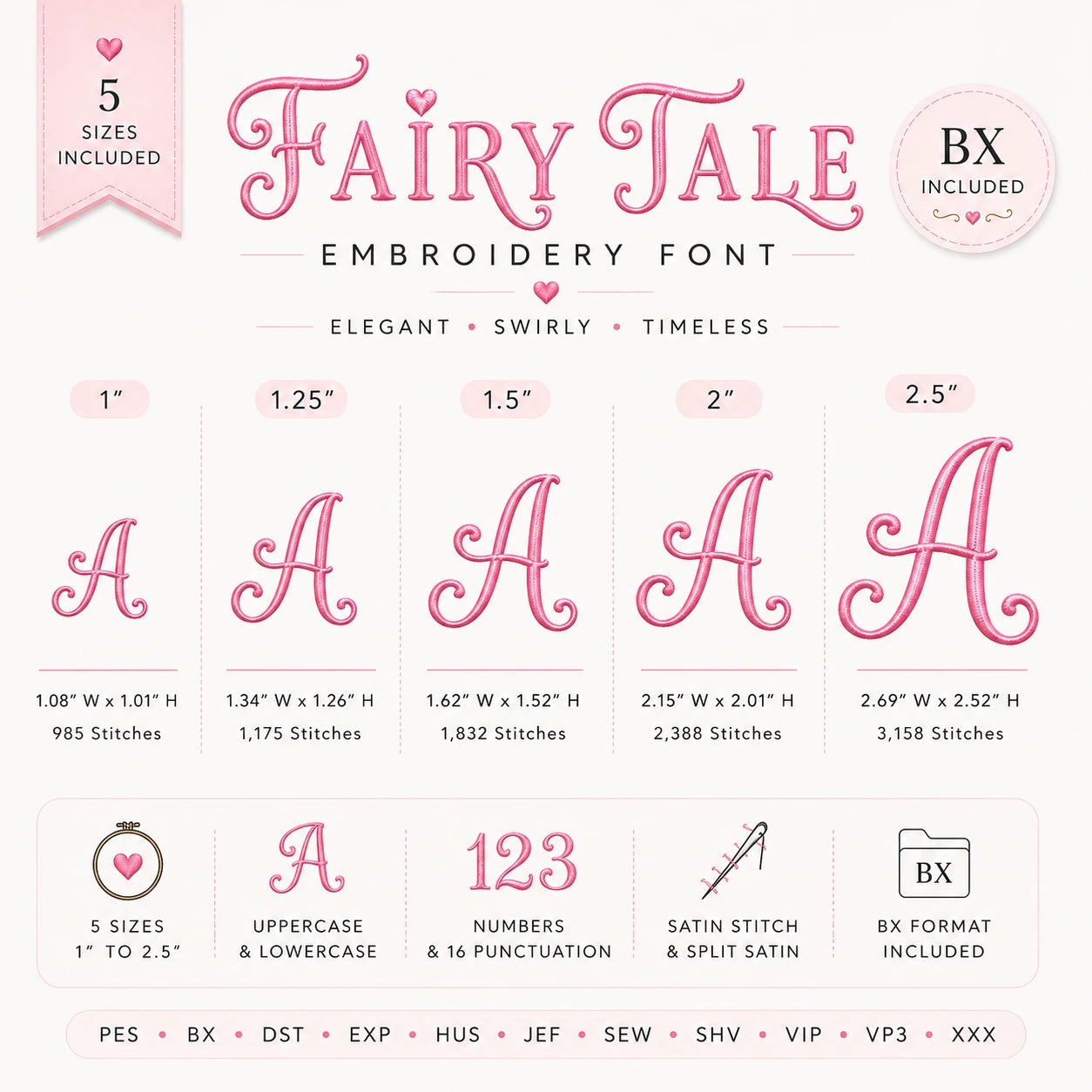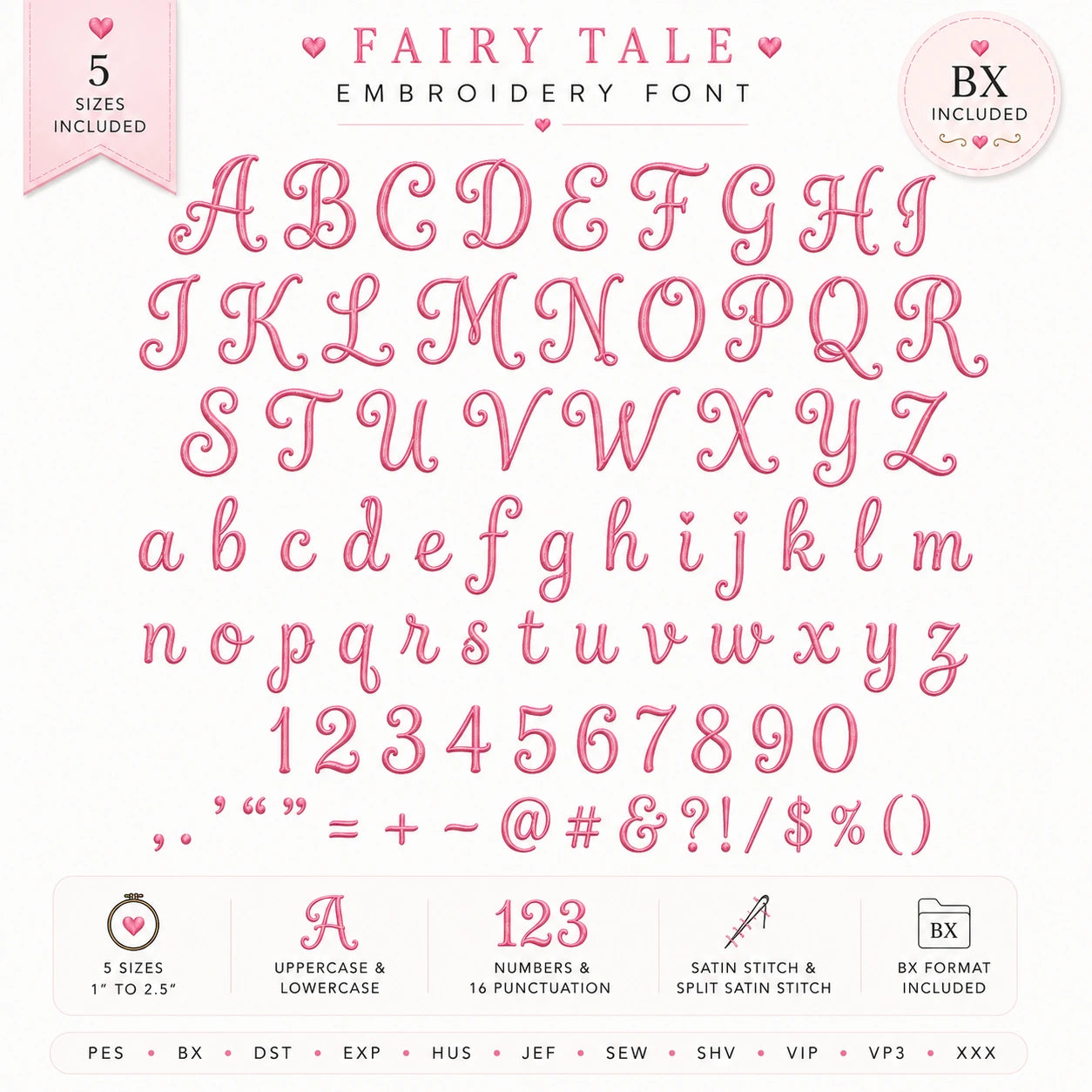
Bring a touch of charm and creativity to your embroidery projects with this beautiful Fairy Tale Embroidery Font. Featuring playful satin stitch lettering with elegant decorative details, this embroidery alphabet is perfect for creating personalized gifts, children's items, clothing, accessories, home décor, and so much more.
Whether you're stitching names, monograms, or custom phrases, this professionally digitized font delivers beautiful, clean embroidery results every time.
✔ Complete Uppercase Alphabet (A–Z)
✔ Complete Lowercase Alphabet (a–z)
✔ Numbers (0–9)
✔ 16 Punctuation Symbols
Professionally digitized using Satin Stitch & Split Satin Stitch for crisp, high-quality embroidery.
Every letter has been carefully digitized to provide:
✔ Smooth satin stitching
✔ Clean stitch paths
✔ Consistent quality across every size
✔ Reliable embroidery results
✔ Professional finish